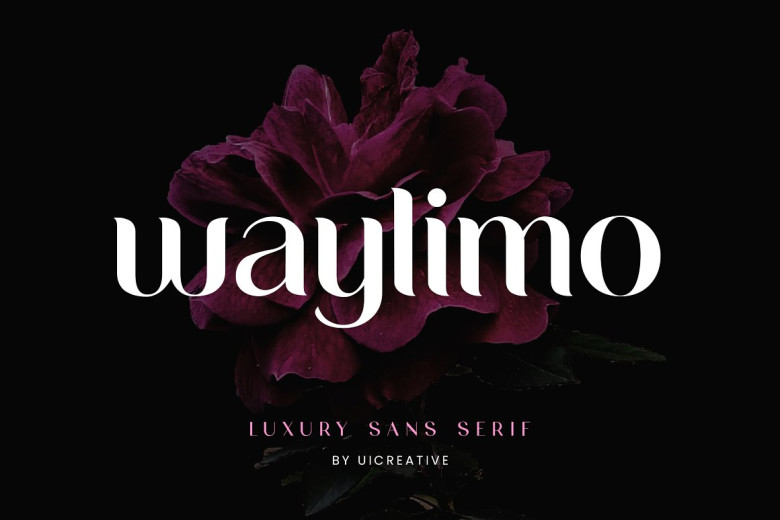
Waylimo Font
We are bringing a new product to the market, The Waylimo Font. Luxury sans serif (typeface) that feels beautiful elegant and modern. This font is well suited for a wide variety of projects, such as signature, stationery; it can also function in place of a logo, wedding invitation, typography quotes album covers or cigarette labels; when you are thinking about magazine or book covers like these fashion-related literary works where you want something both “masculine” and “feminine”.
Newspapers and periodicals need original design for their content together tasteful br and ing concepts suitable for publication on clothing tags or packaging, among other areas in this job mix that sprinkles floral em broidery at random on top of an otherwise purely functionalist set up aids the layout artiste ‘s understanding of “typicality.”
Waylimo Sans Serif Font